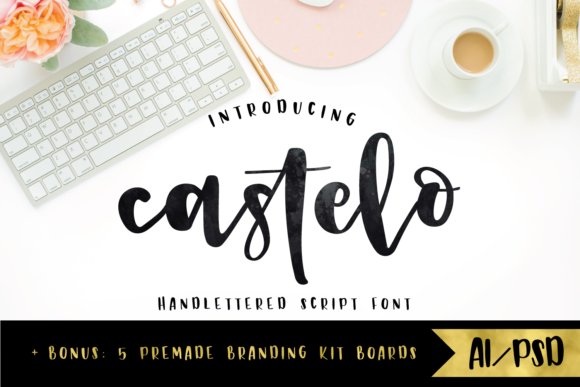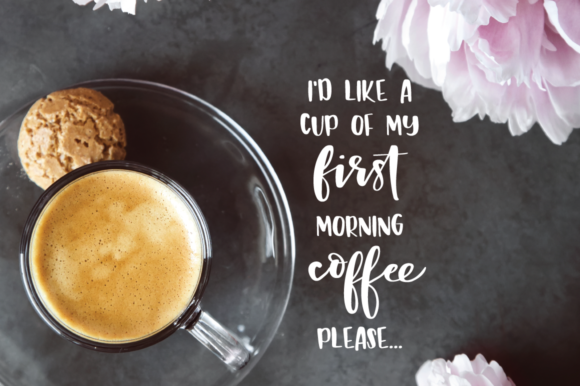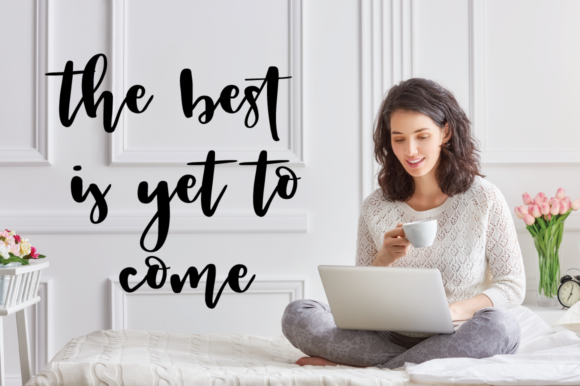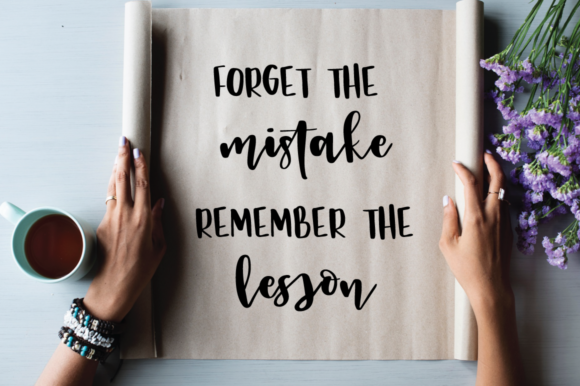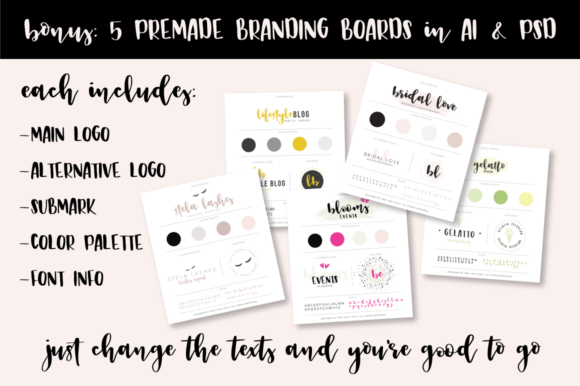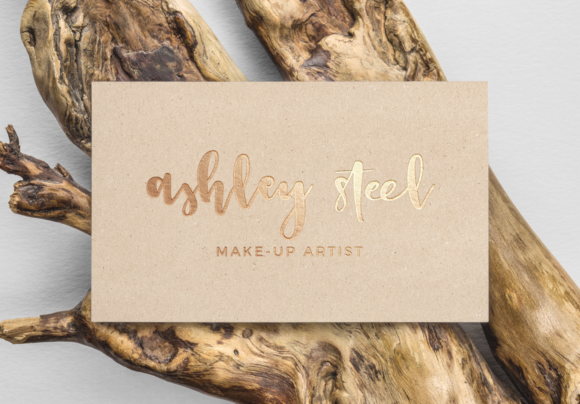
Castelo Script Font
The Castelo is a thick, hand lettered calligraphy script and pack of 5 premade branding kits .
You can use it for branding your business or your clients, stationery, wedding invitations, posters, quotes, Instagram posts, product design, and much more!
The 5 provided remade branding kit templates are very easy to customize – literally retype the texts and you’re good to go!